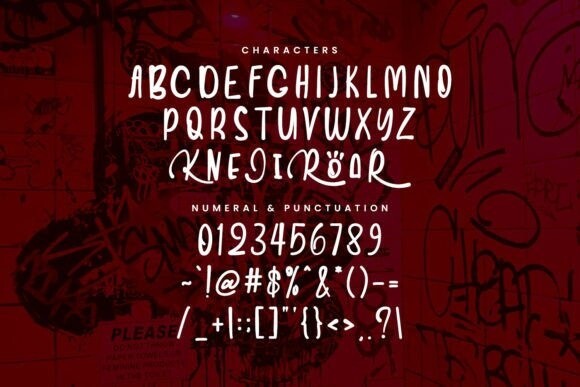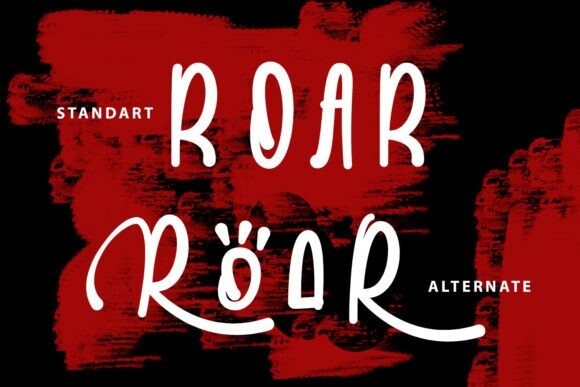
Kane Roar Font
Designer: Maulana Creative
Kane Roar Font is an incredibly cool and unique display font in a handwritten style. It has a modern yet whimsical style and it will undoubtedly immerse your designs into a magical world.